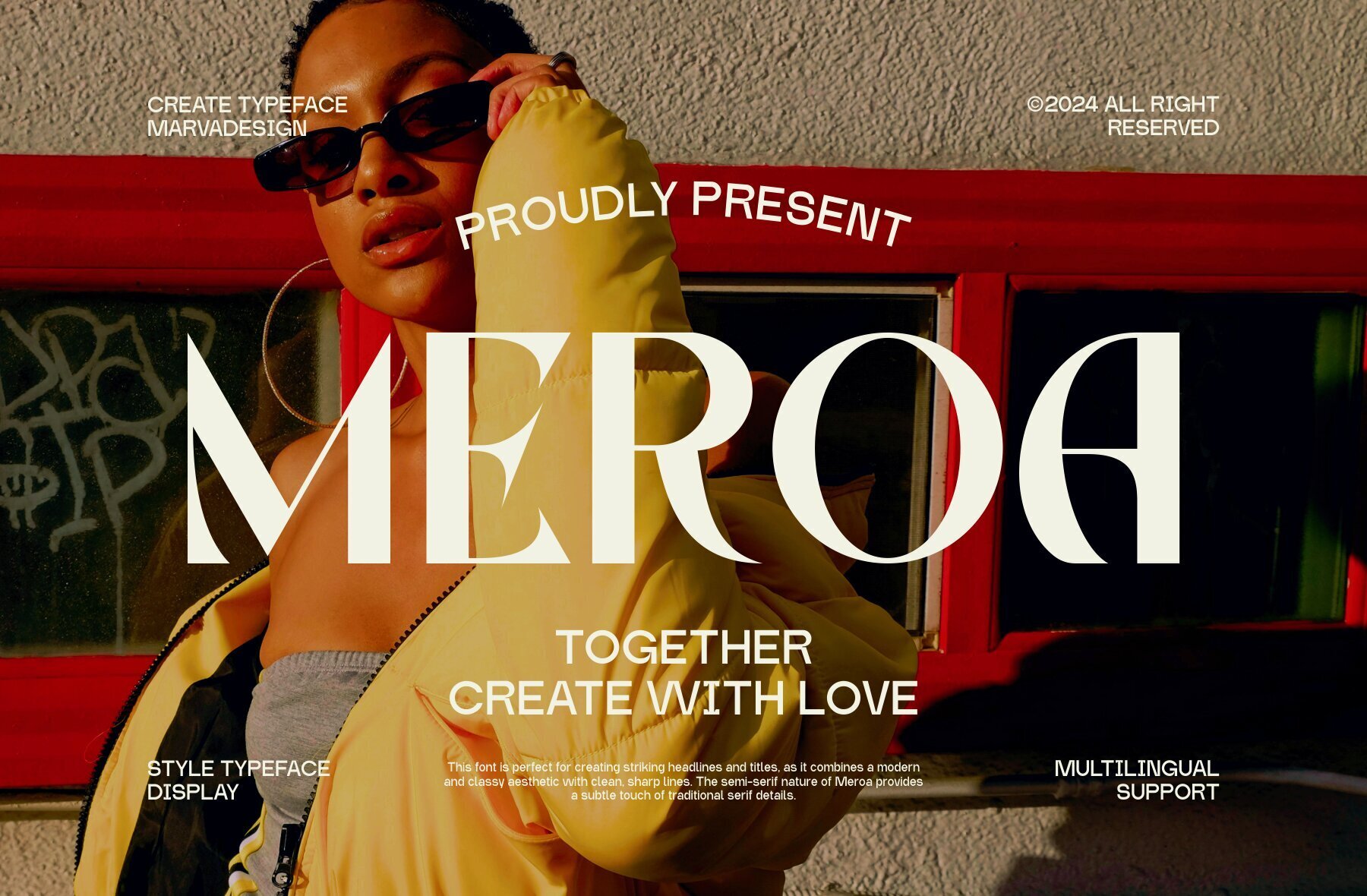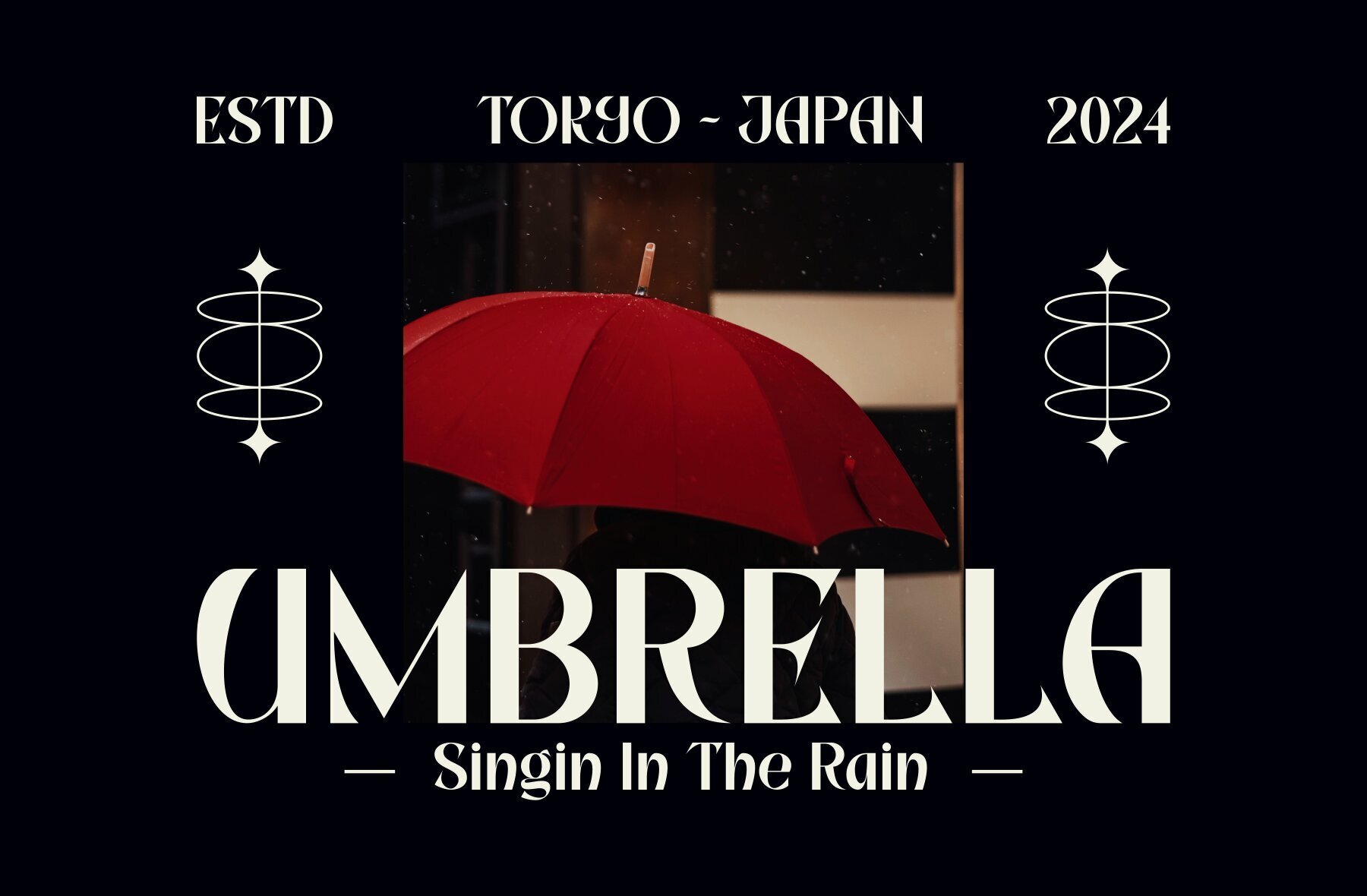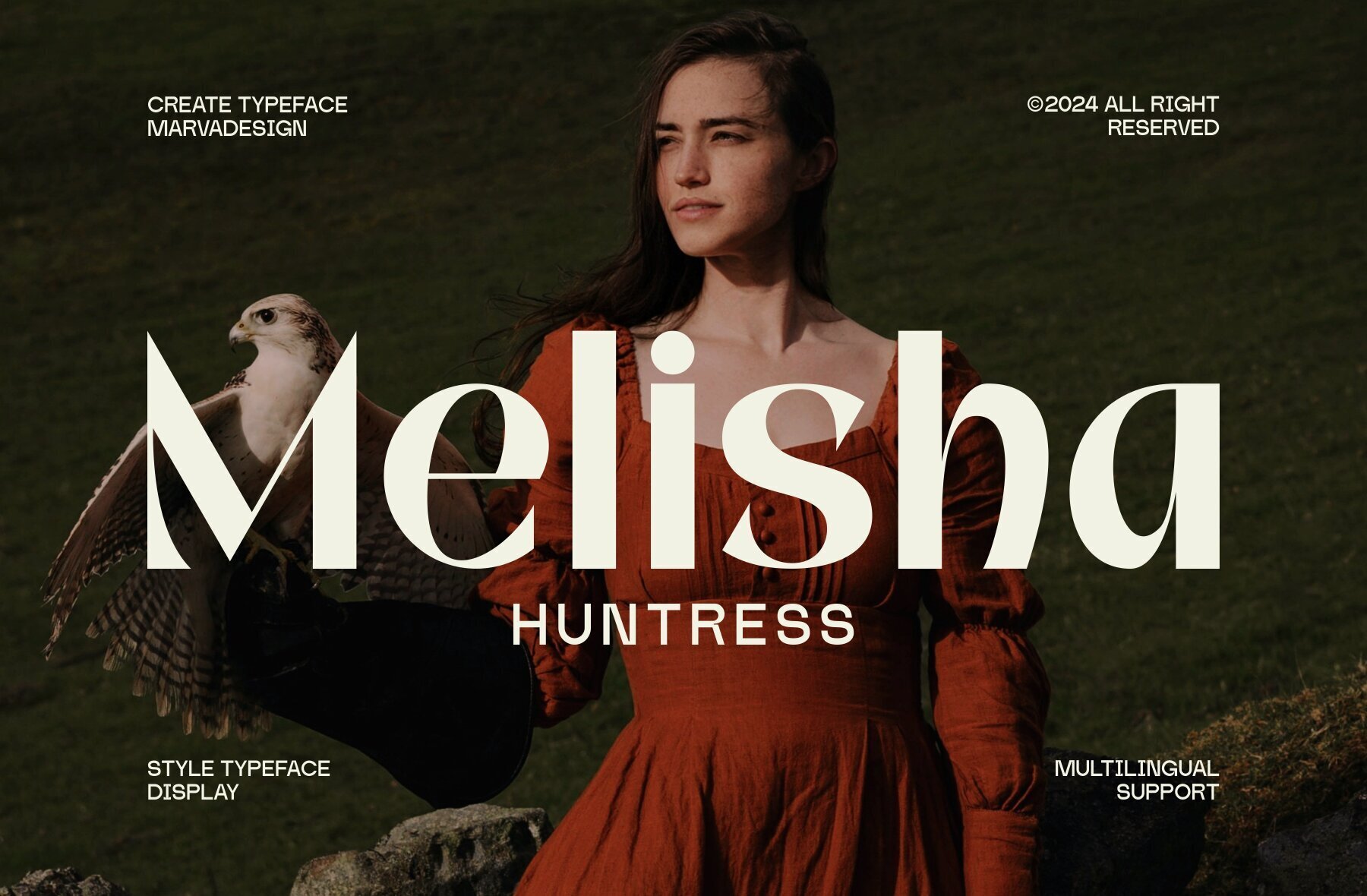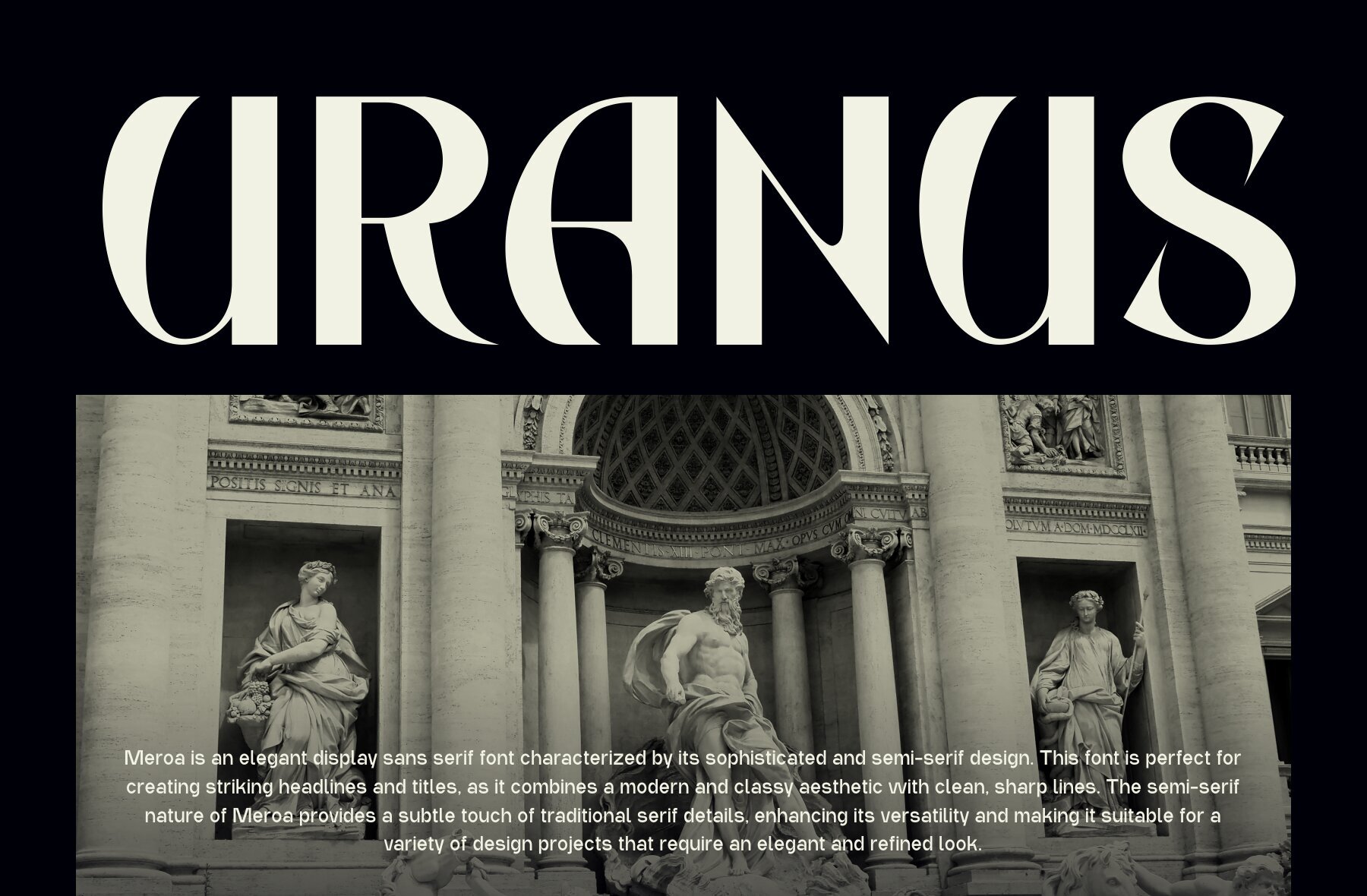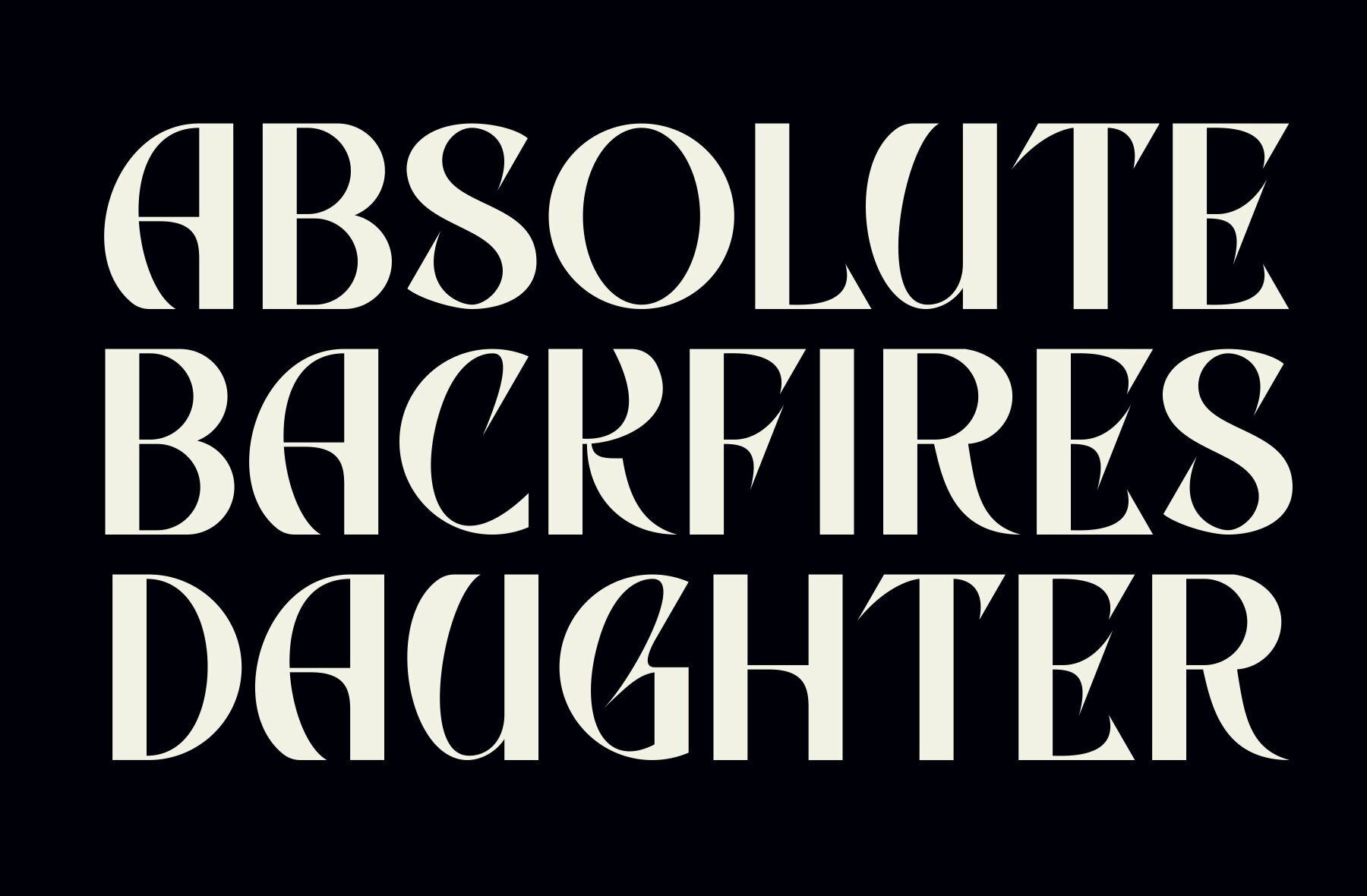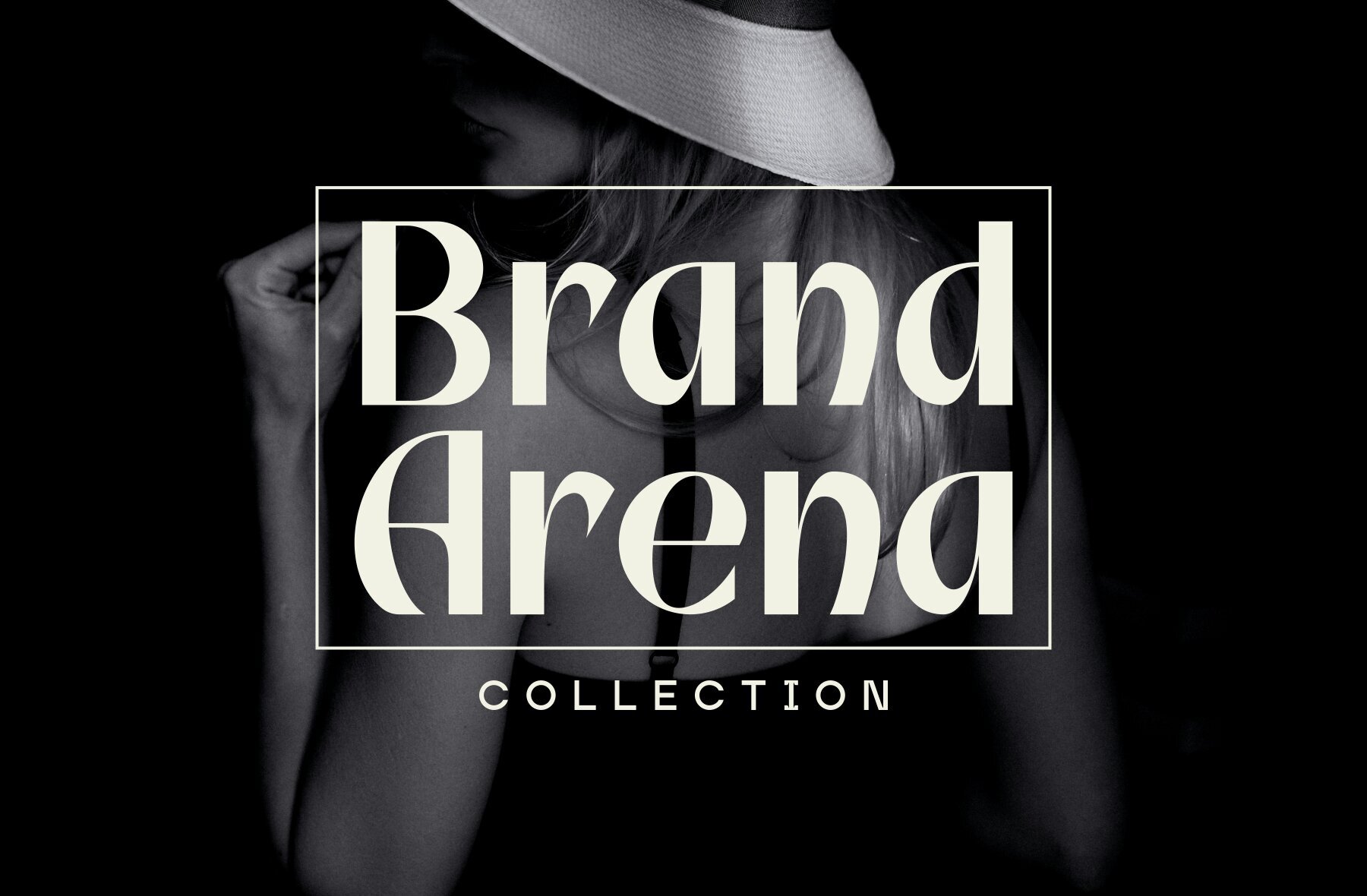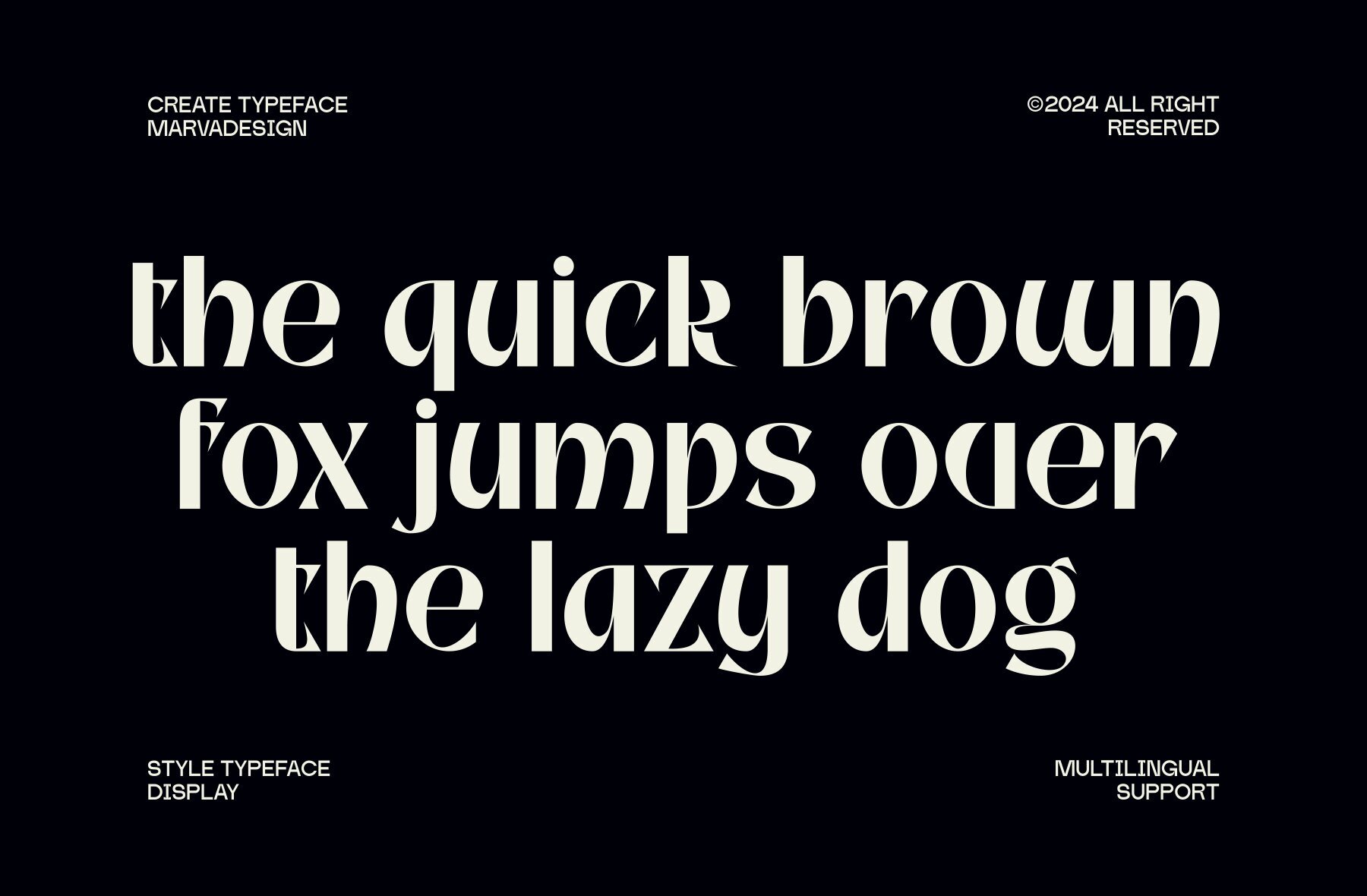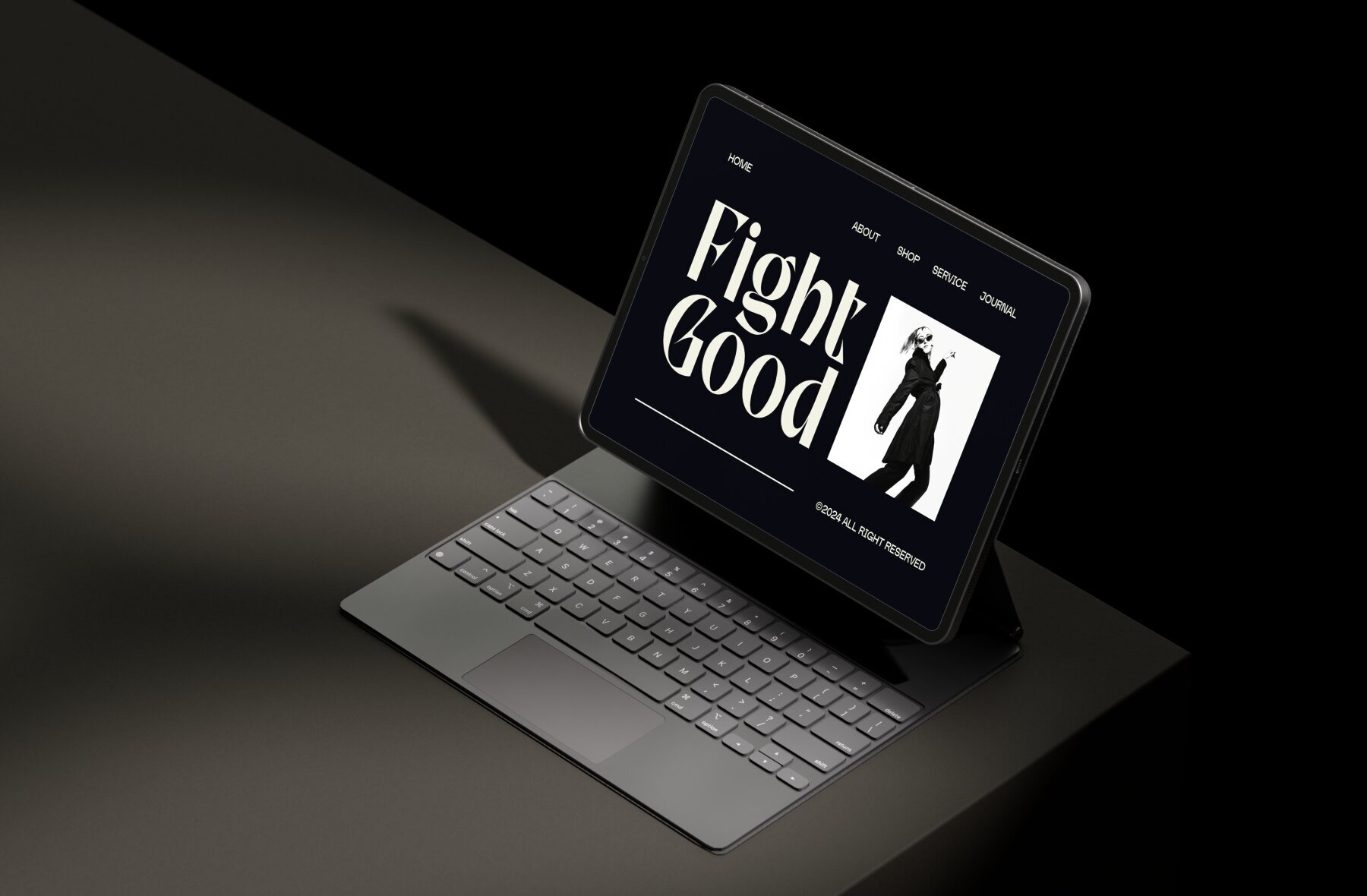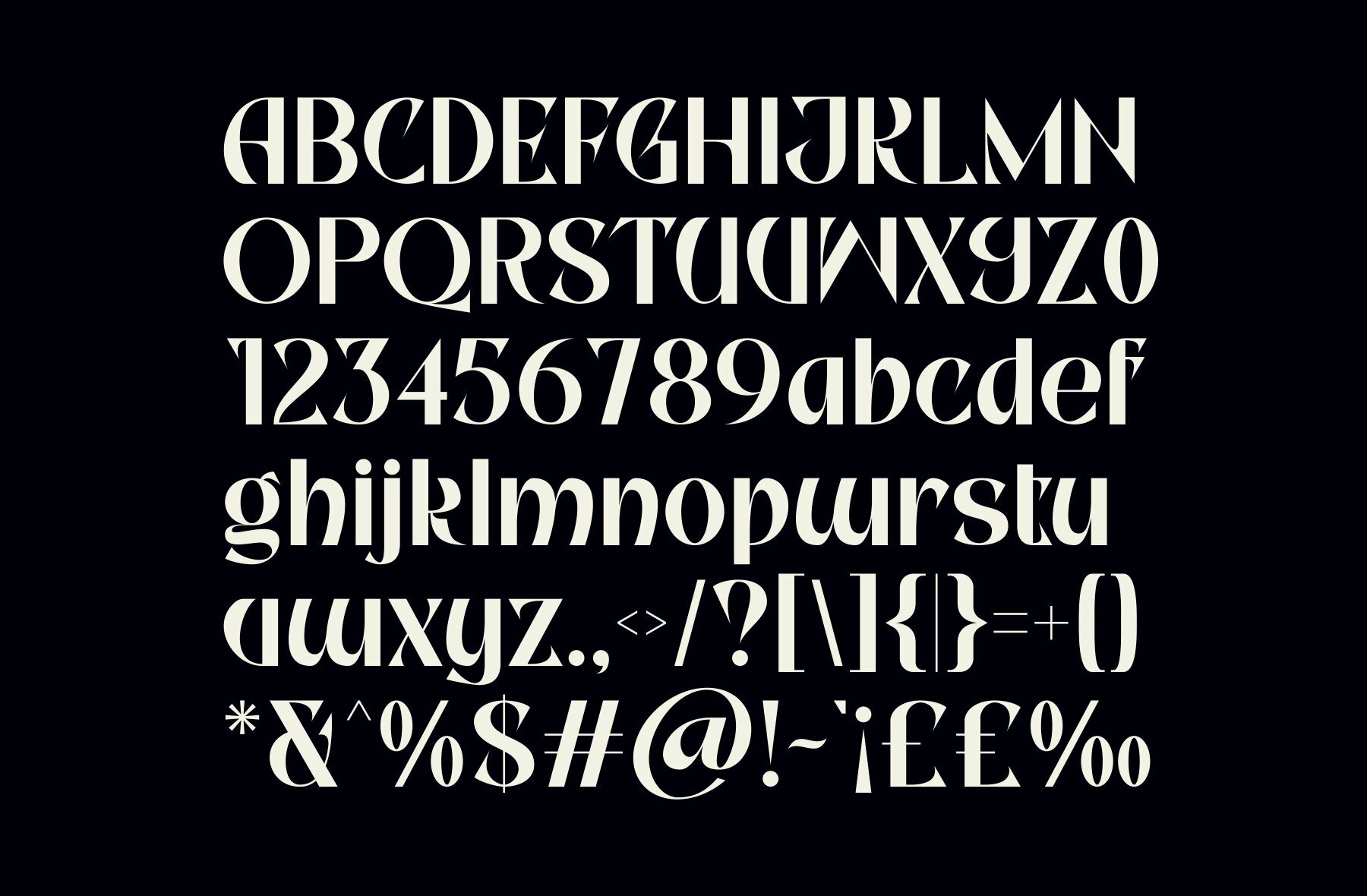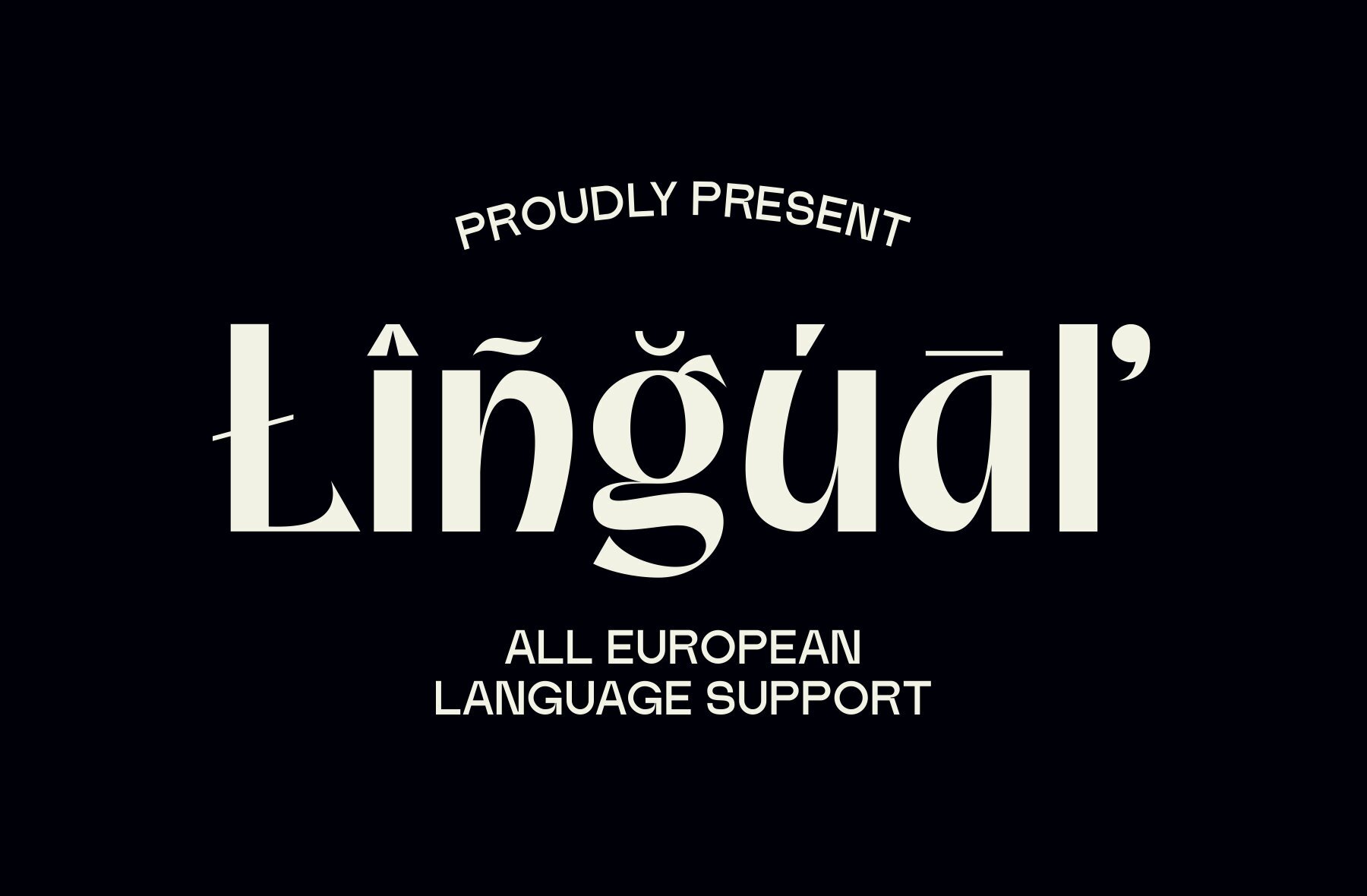
Meroa Font
Meroa Regular
Meroa is an elegant display sans serif font known for its sophisticated and semi-serif design. Perfect for creating striking headlines and titles, Meroa combines a modern, classy aesthetic with clean, sharp lines. The semi-serif elements offer a touch of traditional serif details, enhancing its overall versatility.
This unique blend makes Meroa an excellent choice for various design projects that demand an elegant and refined appearance. Whether you're working on digital interfaces, print materials, branding, or editorial design, Meroa's distinctive style provides a refined look that stands out.